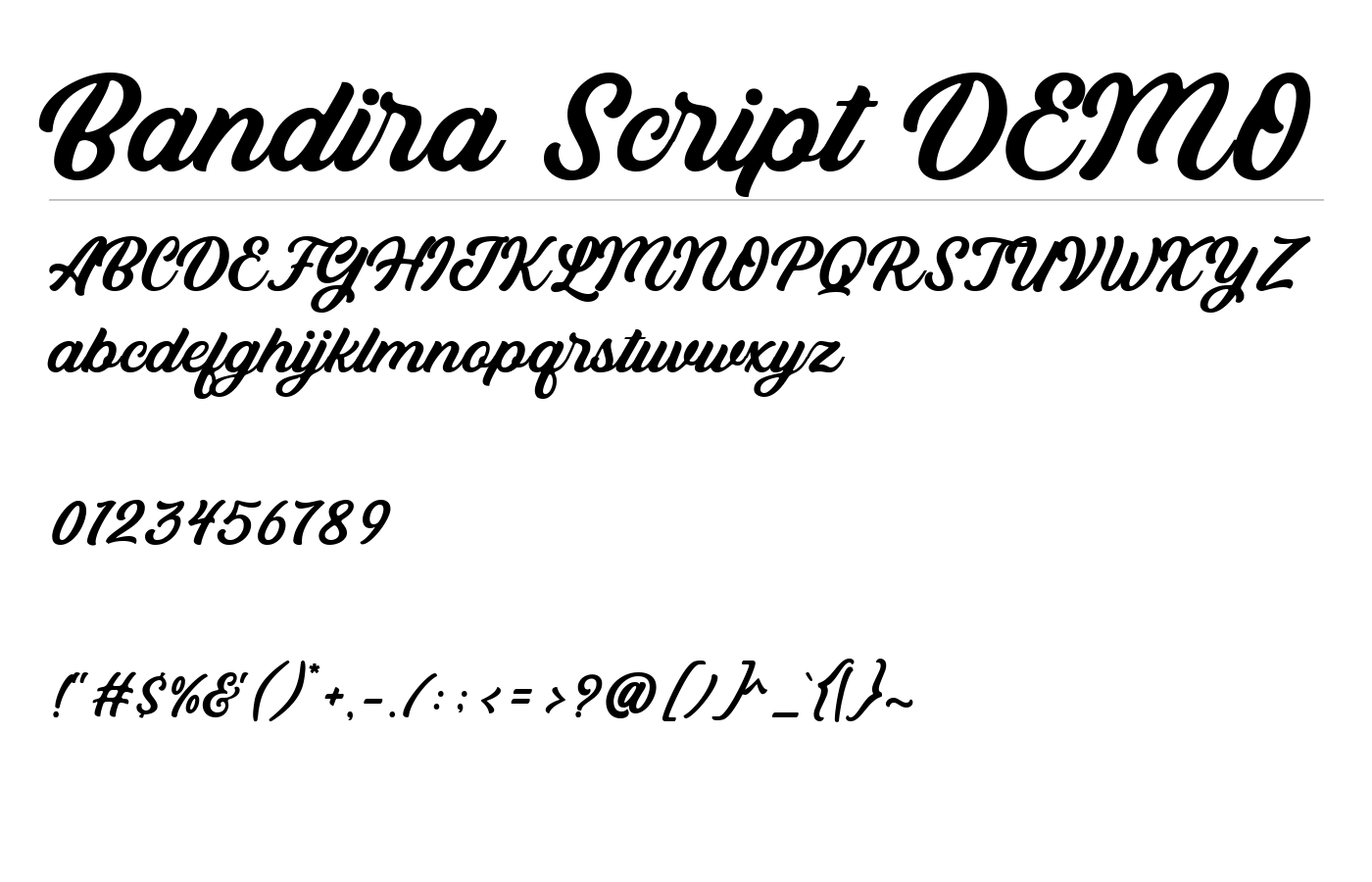
Bandira Script DEMO is a bold, elegant script font featuring smooth, flowing curves and a strong connection between letters that convey a friendly yet refined personality. Its high contrast strokes and cursive style make it perfect for branding, invitations, and signage that require a vintage-inspired, sophisticated touch. This font stands out best in headlines or decorative use where charm and readability combine beautifully.
Bandira Script DEMO Font
About Bandira Script DEMO Font
| Font family | Bandira Script DEMO Font |